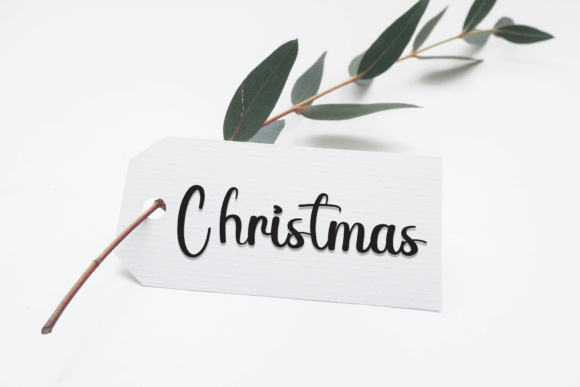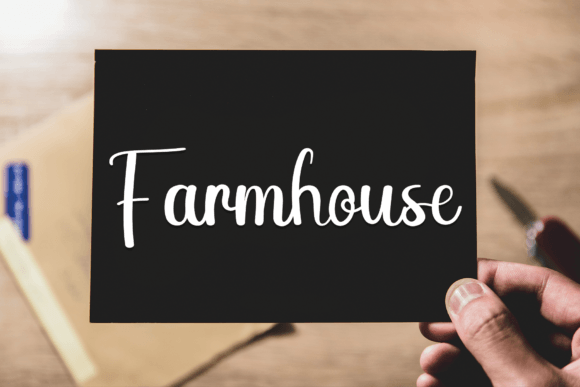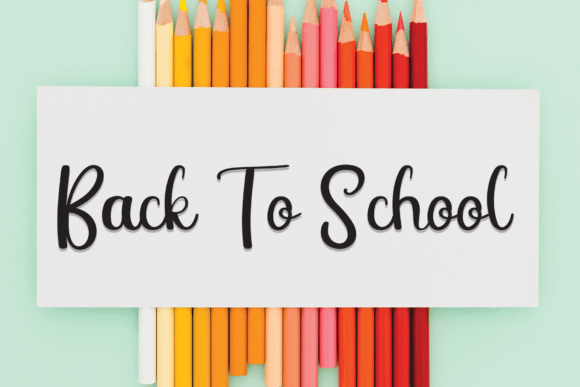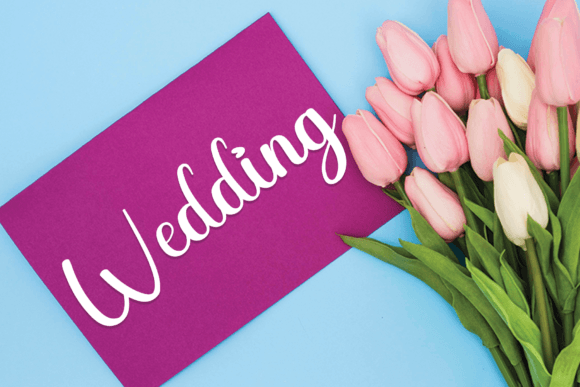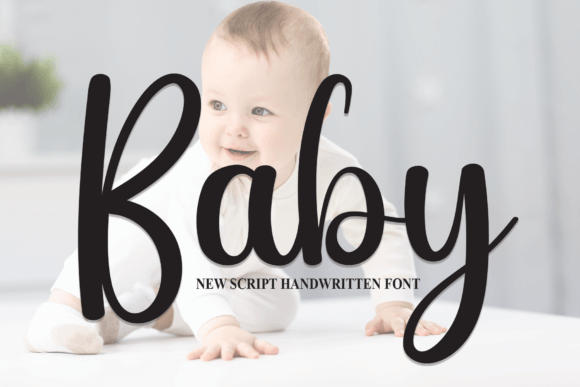
Baby Font: The Sweet and Smooth Handwritten Font for Romantic Designs
Are you a designer or crafter looking for a font that can add a romantic and personal touch to your designs? Look no further than Baby Font, a sweet and smooth handwritten font that’s perfect for creating beautiful wedding invitations, cards, and other designs that require a touch of elegance and whimsy.
What is Baby Font?
Baby Font is a modern handwritten font that’s been designed to be both cute and playful, yet elegant and sophisticated. Its smooth and flowing lines make it perfect for creating romantic and feminine designs that will capture the hearts of your audience. Whether you’re designing a wedding invitation, a greeting card, or a social media graphic, Baby Font is the perfect choice.
Key Features of Baby Font
- Sweet and Smooth Lines: Baby Font features smooth and flowing lines that give it a sweet and elegant look.
- Cute and Playful: Despite its elegance, Baby Font is also playful and fun, making it perfect for designs that require a touch of whimsy.
- Romantic and Feminine: Baby Font is designed to be romantic and feminine, making it perfect for wedding invitations, bridal shower invitations, and other designs that require a touch of elegance.
- Versatile: Baby Font can be used for a wide range of designs, from wedding invitations and cards to social media graphics and blog posts.
Why Use Baby Font?
There are many reasons why Baby Font is the perfect choice for designers and crafters. Here are just a few:
- Adds a Personal Touch: Baby Font adds a personal touch to your designs, making them feel more handmade and special.
- Easy to Read: Despite its playful and whimsical nature, Baby Font is easy to read, making it perfect for designs that require a lot of text.
- Unique and Creative: Baby Font is a unique and creative font that will help your designs stand out from the crowd.
- Perfect for Wedding Designs: Baby Font is perfect for wedding designs, including wedding invitations, bridal shower invitations, and wedding stationery.
How to Use Baby Font
Using Baby Font is easy! Here are a few tips to get you started:
- Pair it with Other Fonts: Baby Font pairs well with other fonts, including serif and sans-serif fonts. Try pairing it with a bold font for a striking contrast.
- Use it for Headings and Titles: Baby Font is perfect for headings and titles, where its playful and whimsical nature can really shine.
- Add it to Your Designs: Add Baby Font to your designs, including wedding invitations, cards, and social media graphics, to add a touch of elegance and whimsy.
In conclusion, Baby Font is a sweet and smooth handwritten font that’s perfect for designers and crafters looking to add a romantic and personal touch to their designs. With its smooth and flowing lines, cute and playful nature, and versatile design, Baby Font is the perfect choice for wedding invitations, cards, and other designs that require a touch of elegance and whimsy. So why not give Baby Font a try and see how it can elevate your designs?